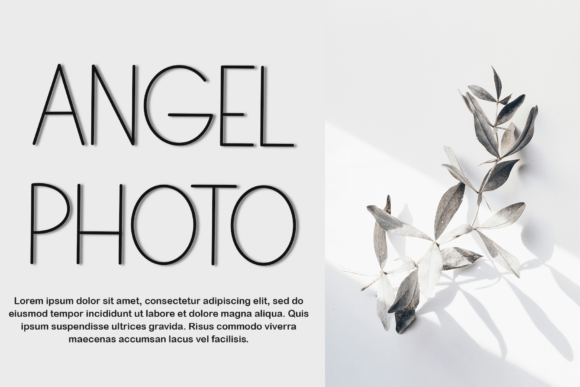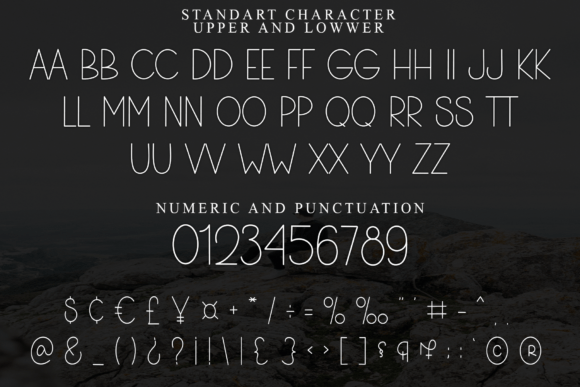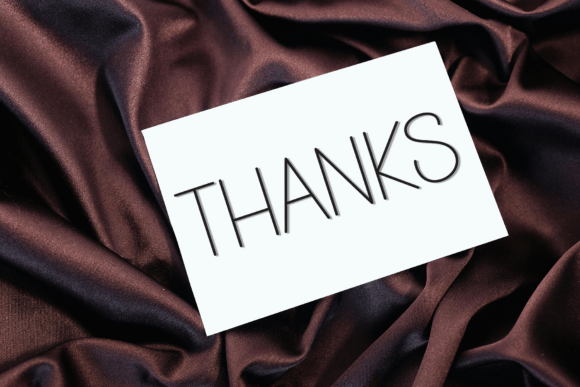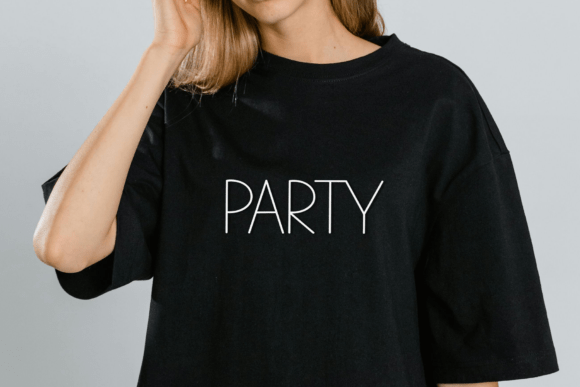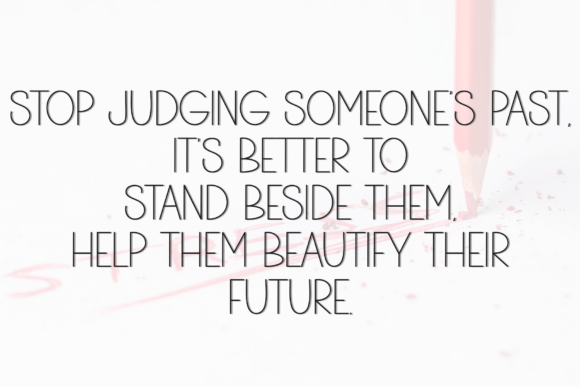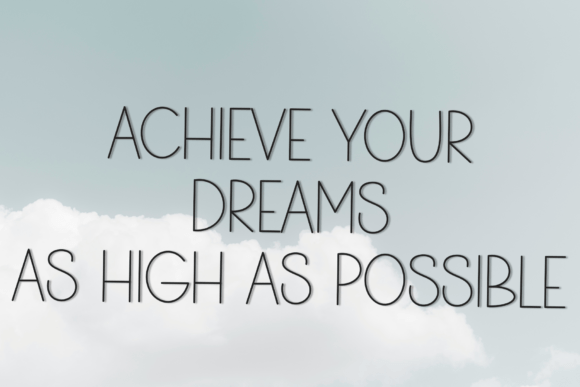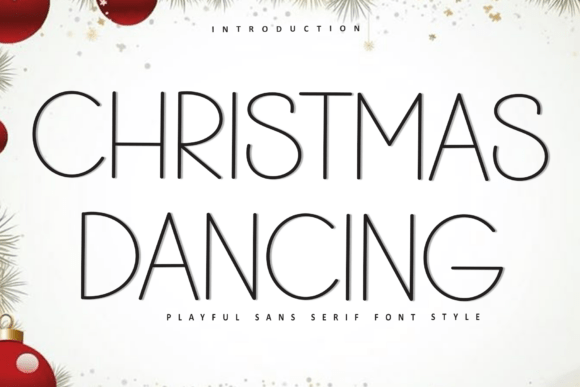
Christmas Dancing Font: A Festive and Versatile Typeface for Your Creative Projects
Are you looking for a font that captures the essence of Christmas and adds a touch of magic to your designs? Look no further than the Christmas Dancing Font, a beautiful and eye-catching typeface that is sure to make your projects stand out. With its soft, unique touch and distinctive strokes, this font is perfect for designers, crafters, and creatives of all kinds.
A Unique and Meaningful Font
Christmas Dancing Font is designed with a special character that sets it apart from other fonts. Its soft and delicate strokes give it a warm and inviting feel, making it perfect for a wide range of applications, from holiday-themed designs to everyday creative projects. The font’s unique touch also makes it highly legible, ensuring that your message is conveyed clearly and effectively.
Versatile and Compatible
Christmas Dancing Font is a dream come true for designers and crafters. Its unique and festive style makes it perfect for a wide range of creative projects, from holiday cards and invitations to social media graphics and blog posts. The font’s various characters also make it ideal for use in crafts, such as hand-lettering and DIY projects.
Enhance Your Designs
With Christmas Dancing Font, you can add a touch of magic to your designs and make them more appealing to your audience. The font’s soft and delicate strokes give it a warm and inviting feel, making it perfect for designs that need to convey a sense of joy and festivity. Whether you’re working on a holiday-themed project or just want to add some personality to your designs, this font is sure to impress.
- Soft and unique touch
- Distinctive strokes for a special character
- Perfect for design projects, crafts, and other creative works
- Various characters for added flexibility
- Ideal for holiday-themed designs and everyday creative projects
Christmas Dancing Font is a beautiful and versatile typeface that is perfect for designers, crafters, and creatives of all kinds. With its soft, unique touch and distinctive strokes, this font is sure to add a touch of magic to your designs and make them more appealing to your audience. Whether you’re working on a holiday-themed project or just want to add some personality to your designs, Christmas Dancing Font is a great choice.